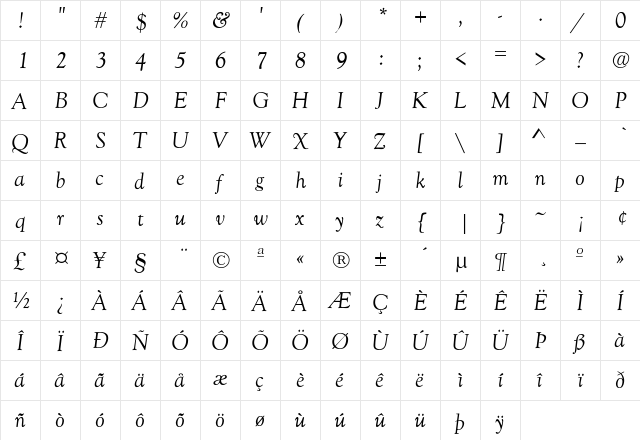
Singles Normal Italic Regular
Design Context for Singles Normal Italic Typeface
Singles Normal Italic is a composed and adaptable typeface that performs quietly and consistently across a wide range of design contexts. Its italic angle brings a sense of urgency and motion to the letterforms.